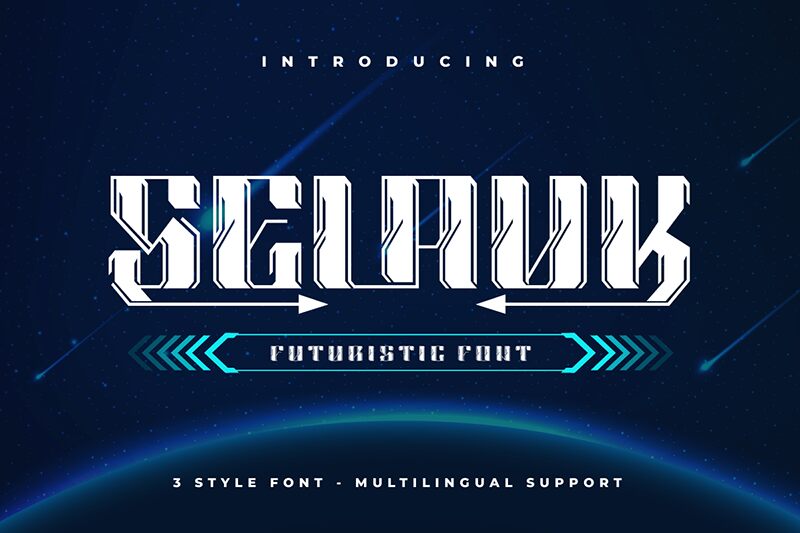
Selauk font family by twinletter contains 2 font styles with a distinct techno inspiration. Sleek, modern, and futuristic, each angular character is made of geometric lines that give an innovative, dynamic touch. The high-tech design aims at offering a new look which is less circumstantial and more durable. As a result, a contemporary, cutting-edge appearance is possible with this free font family.
Use Selauk for modern posters, futuristic book titles, and eye-catching magazine covers. New logos, apps, and branding projects for high-tech start-ups are also in need of Selauk’s innovation. Typographic covers for records and albums, especially electronic, will find a pleasant output when this font is used.